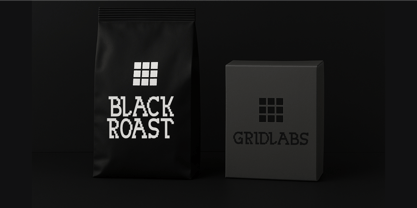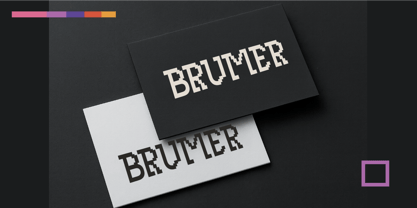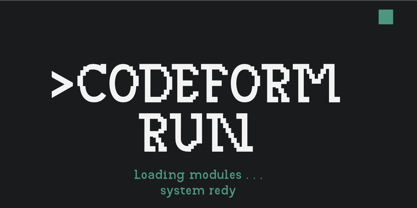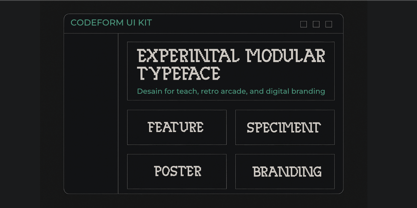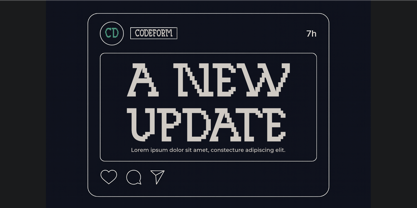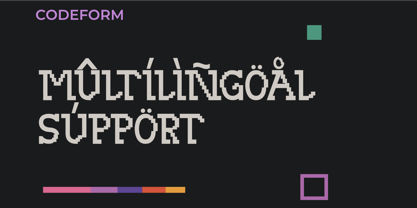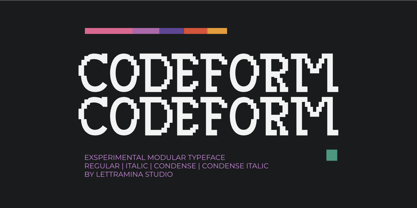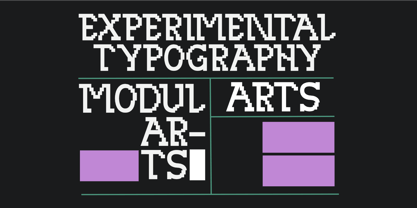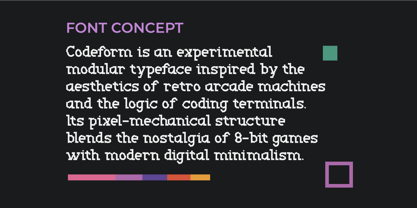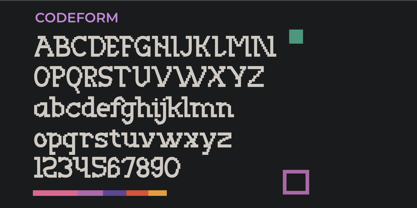
Codeform
by Lettramina Studio
The Codeform Font Family was designed by Mukshal Mina and published by Lettramina Studio. Codeform contains 4 styles and family package options. More about this family
Codeform is a bold experimental modular typeface that blends the aesthetics of retro arcade design with the precision of coding terminals. Its geometric, pixel-inspired forms create a unique balance between nostalgia and modern minimalism, making it perfect for designers who want to push boundaries.
With its monospaced feel, strong structure, and digital-inspired texture, Codeform works beautifully for editorial layouts, experimental posters, tech branding, gaming visuals, and futuristic digital interfaces. Whether you’re building a logo, social media campaign, or immersive UI design, this typeface adds a bold, unconventional edge to your work.
Designers: Mukshal Mina
Foundry: Lettramina Studio